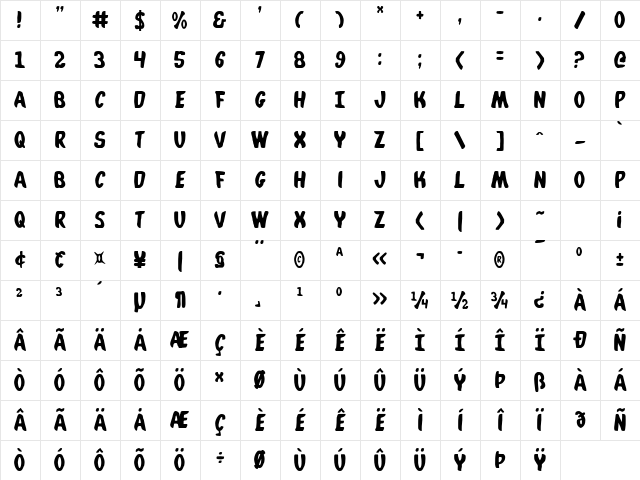
Whatafont Regular
Design Context for Whatafont
Whatafont is a composed and adaptable typeface that performs quietly and consistently across a wide range of design contexts.
Pro Tip: Use Whatafont in both headline and body roles to test its range before committing to a single application.